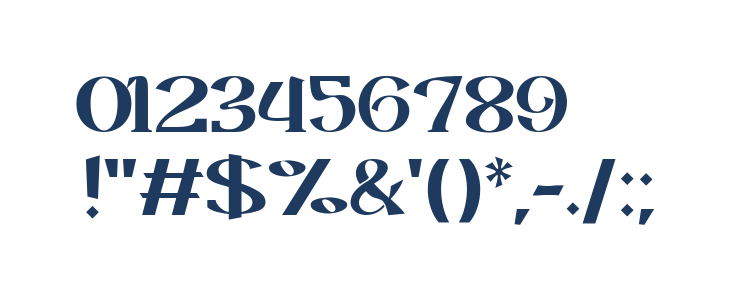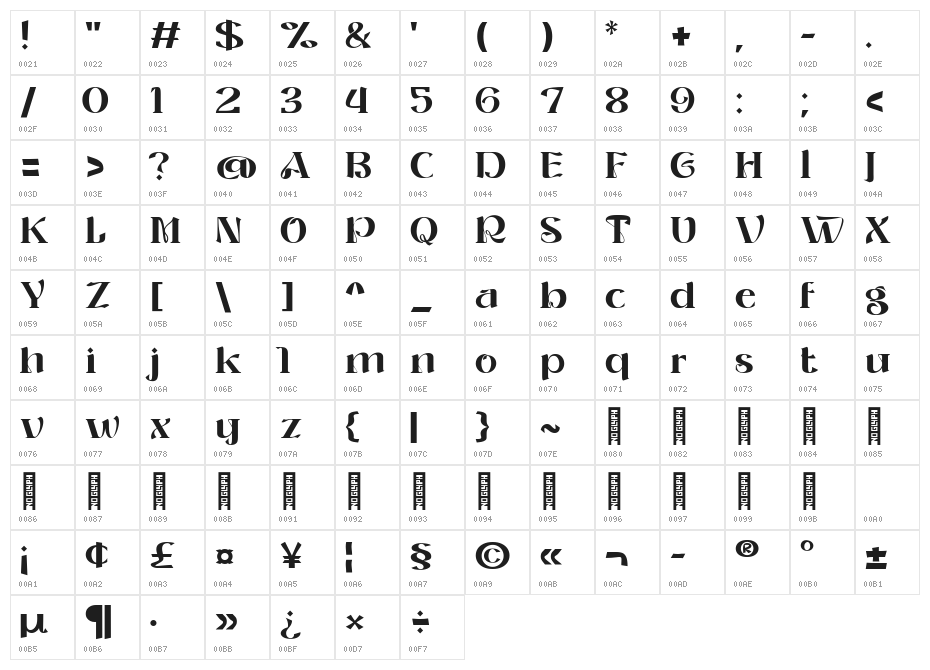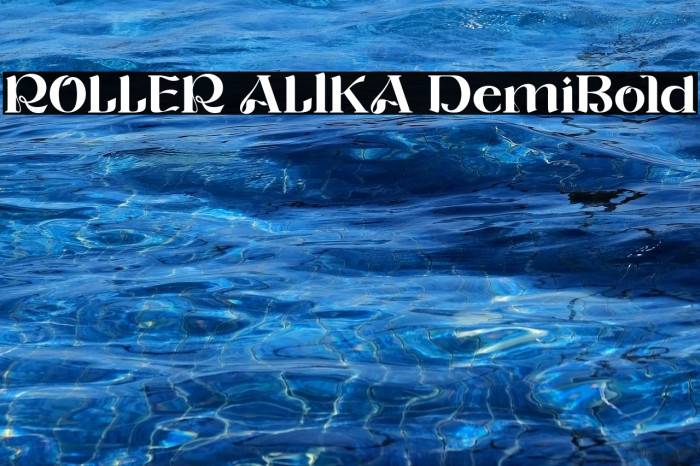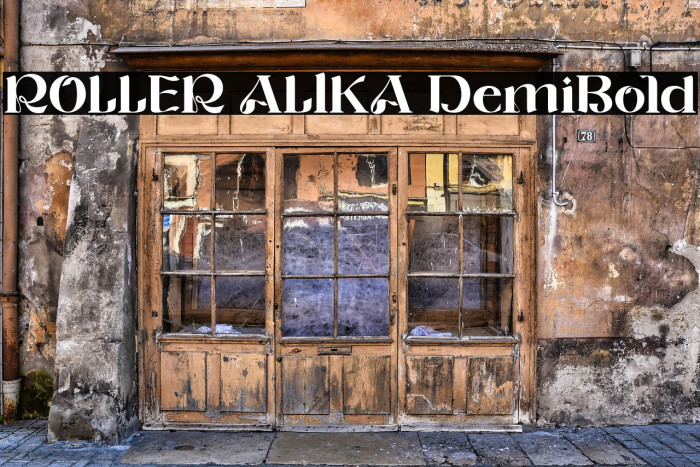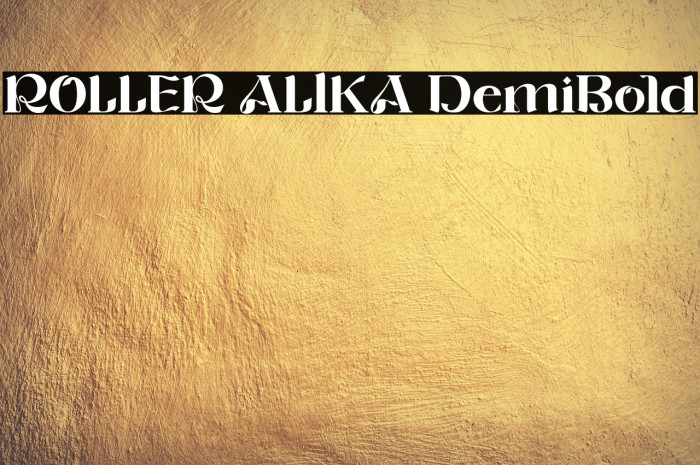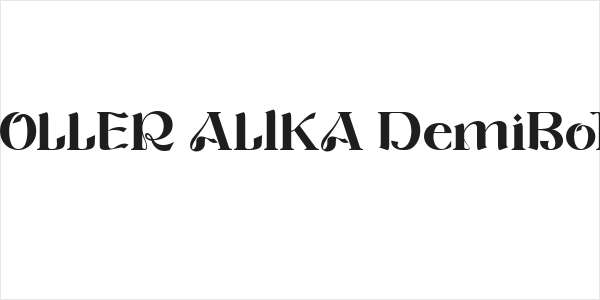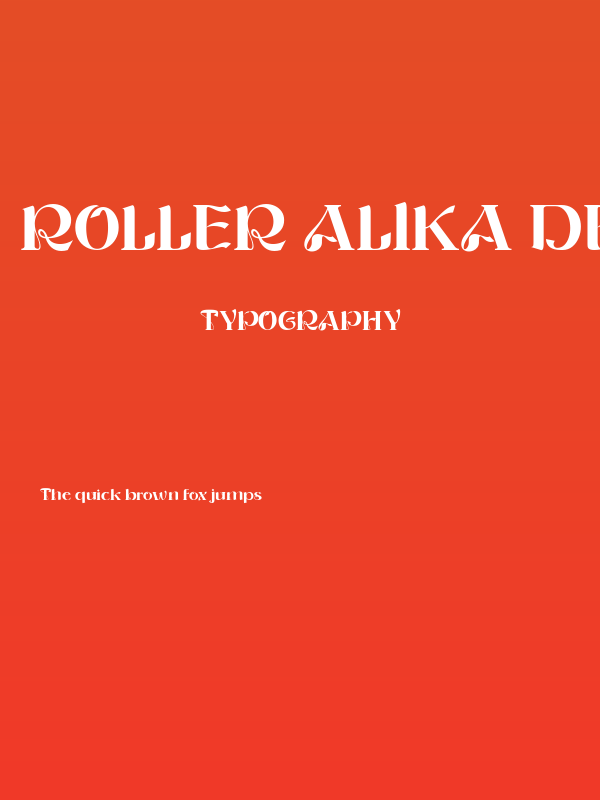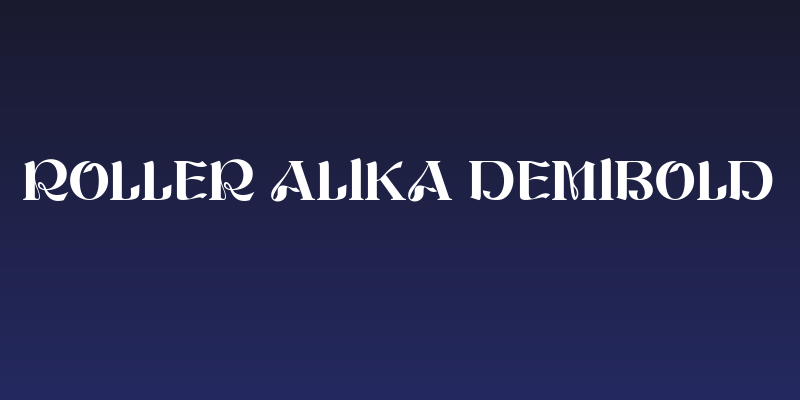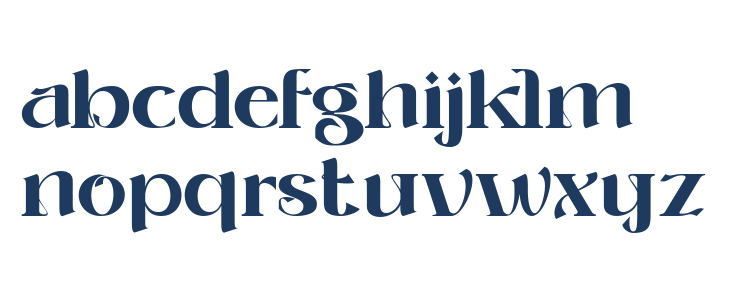
ROLLER ALIKA DemiBold Font
ROLLER ALIKA DemiBold Description
This font features a bold and dynamic style with a decorative flair. The uppercase letters exhibit a unique blend of sharp angles and smooth curves, creating a striking visual impact. The lowercase letters maintain a consistent style, with some characters displaying distinctive swashes and flourishes. The numbers are bold and easily readable, complementing the overall aesthetic. Special characters are designed with the same attention to detail, ensuring a cohesive look throughout. This font's boldness and decorative elements make it ideal for eye-catching designs.
| Proposed Projects | Ideal for branding, poster design, and headlines that require a strong visual impact. |